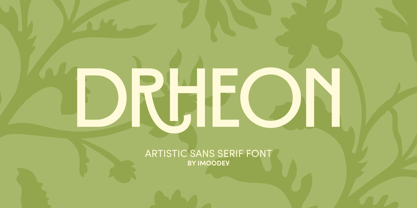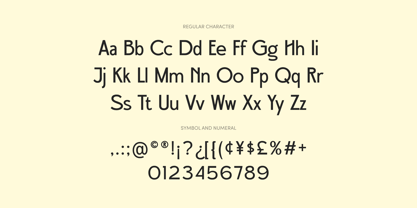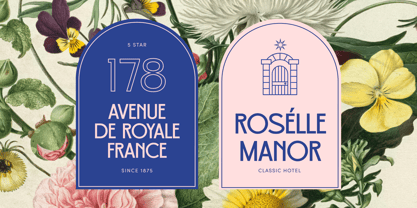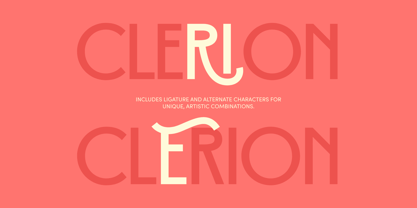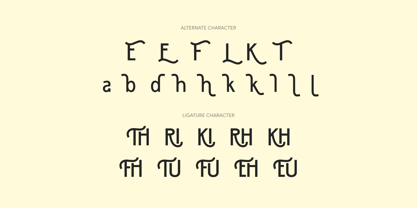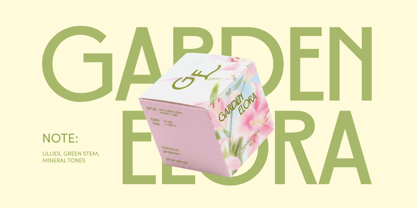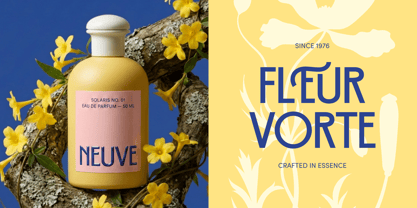
Drheon
by Imoodev
The Drheon Font Family was designed by Aulia Savira Putri and published by Imoodev. Drheon contains 1 styles. More about this family
Redefine your brand’s visual narrative with Drheon, a sans serif typeface designed for the intersection of luxury and minimalism. Drheon strips away the unnecessary, leaving behind a silhouette that is both grounded and ethereal. Its distinctive, flowing ligatures and alternate characters act as subtle "design signatures," perfect for creators who want their typography to feel bespoke rather than mass produced. Drheon brings a sense of curated beauty to every character. It is the ideal for premium skincare packaging, artisanal branding, luxury logo, floral shop identities, or boutique hotel signage.
Designers: Aulia Savira Putri
Foundry: Imoodev